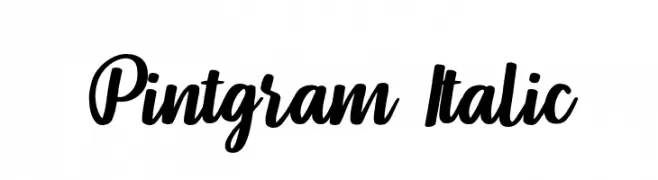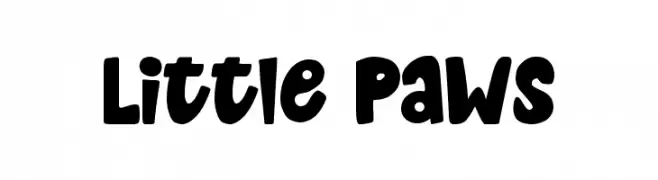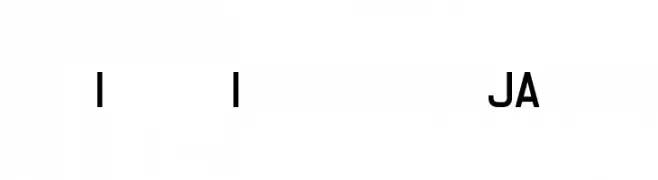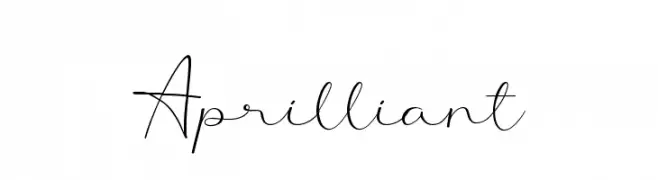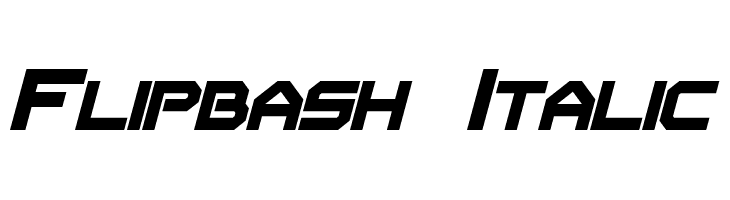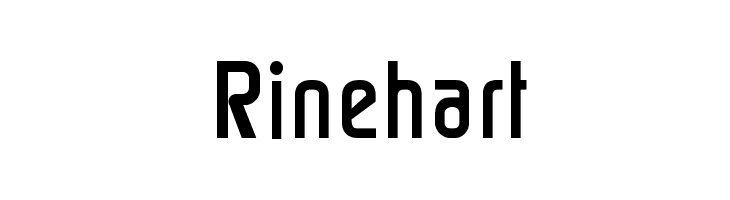
A geometric and structured font with clean lines and uniform strokes.
A geometric, futuristic font with sharp angles and a blocky structure.
A bold, italic script font with connected letters and a dynamic style.
A bold, playful font with rounded, hand-drawn characters.
A modern, geometric font with uniform strokes and high legibility.
A bold, shaded, oblique font with a three-dimensional look.
A bold, textured font with a rugged, dynamic style.
A bold, 3D-effect font with a retro, geometric style.
A bold, playful slab serif with thick, uniform strokes and a slightly rounded finish.
An elegant, flowing script font with smooth, cursive lines and graceful curves.